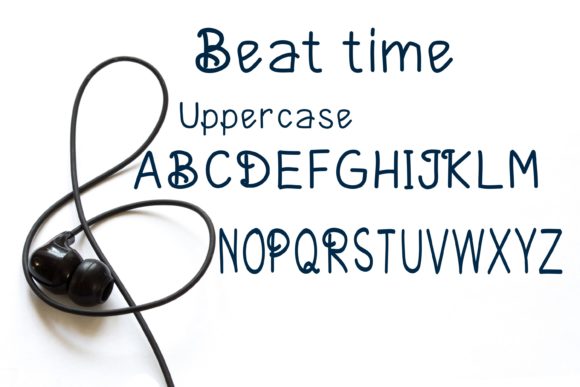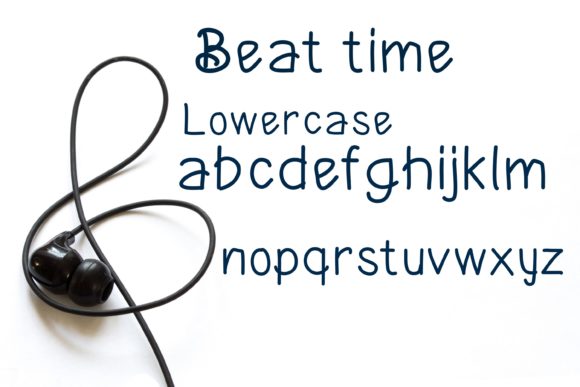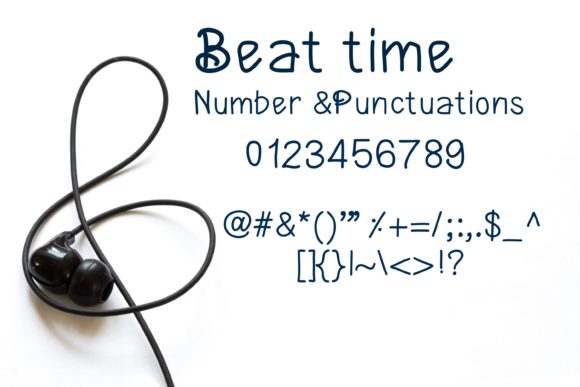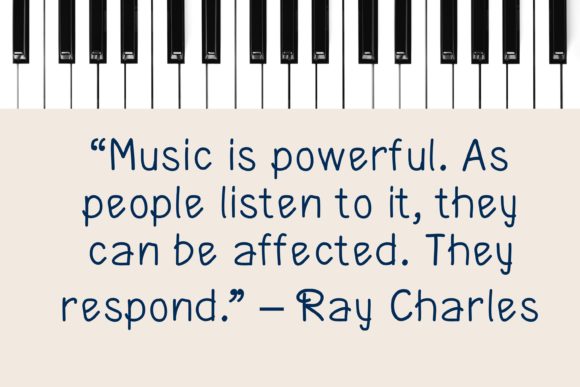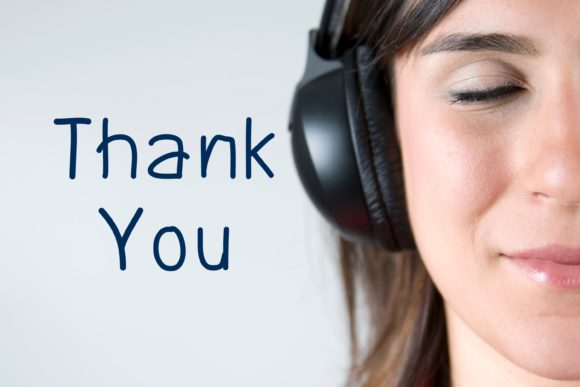
Introducing Beat Time Font: Elevate Your Designs with a Lovely Handwritten Touch
Are you on the lookout for a font that can add a dash of personality and whimsy to your design projects? Look no further than Beat Time Font! This charming handwritten font is designed to bring a neat feel and a striking effect to any design, making it perfect for crafters, designers, and anyone looking to add a touch of joy to their work.
What Makes Beat Time Font Special?
Beat Time Font stands out from the crowd with its unique blend of elegance and playfulness. Its handwritten style gives it a personal and approachable feel, making it ideal for a wide range of design projects, from creative crafts to professional branding. Whether you’re working on a logo, a poster, a greeting card, or a website, Beat Time Font is sure to make your design pop.
Key Features of Beat Time Font
- Handwritten Style: Beat Time Font boasts a beautiful, handwritten style that adds a personal touch to any design.
- Neat Feel: Despite its playful nature, the font maintains a neat and clean appearance, making it easy to read and visually appealing.
- Striking Effect: The font’s unique style ensures that your designs will stand out and grab attention.
- Versatility: Beat Time Font can be used for a variety of design projects, including but not limited to logos, posters, greeting cards, websites, and more.
- Pair it with Other Fonts: Beat Time Font works beautifully when paired with other fonts. Try combining it with a sans-serif font for a modern look or with a serif font for a more classic feel.
- Experiment with Colors: The font looks great in a variety of colors, so don’t be afraid to experiment and find the perfect hue for your design.
- Play with Sizes: Beat Time Font can make a big impact in large sizes, but it’s also effective in smaller sizes, making it perfect for detailed work.
Beat Time Font is a versatile tool that can benefit a wide range of designers and crafters, including:
- Graphic Designers: Looking for a unique font to add to their portfolio or to use in client projects.
- Crafters: Creating handmade cards, scrapbooking, or other paper crafts.
- Web Designers: Seeking to add a personal touch to websites or web applications.
- Small Business Owners: Wanting to create distinctive branding materials.